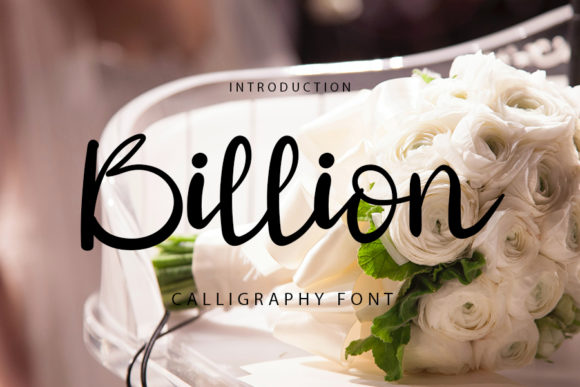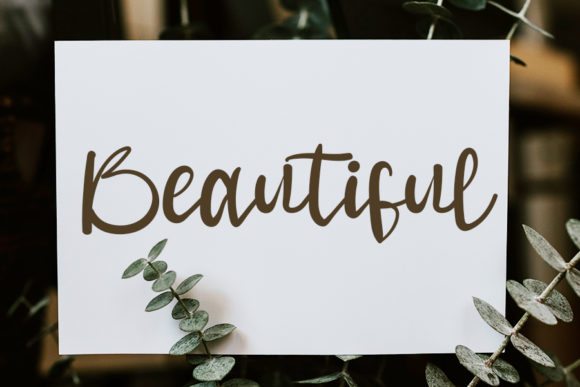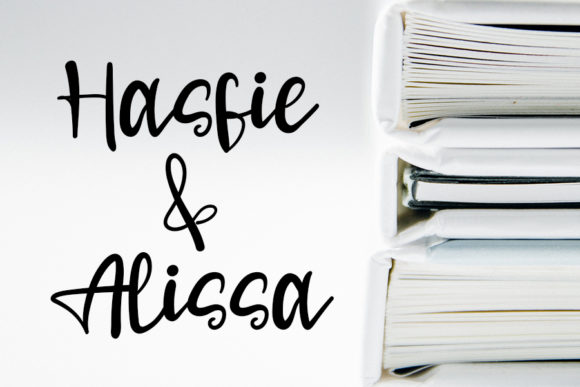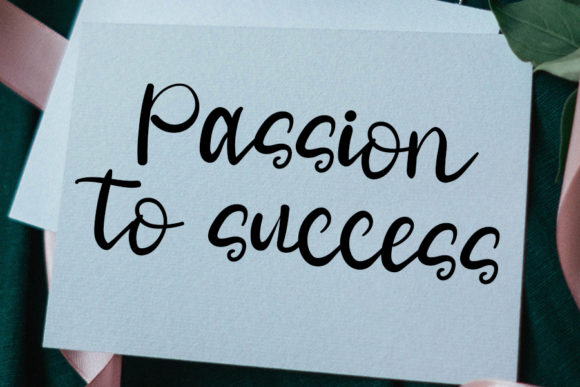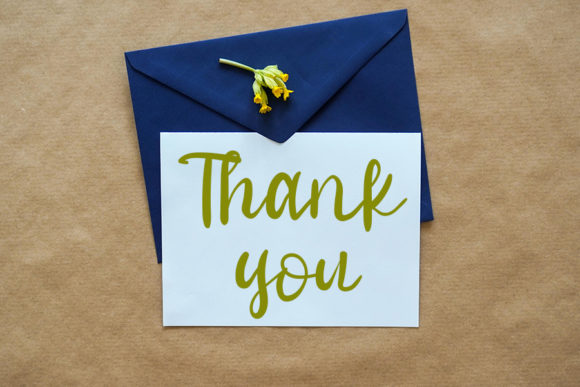
Billion Font
About Billion Font
Billion is a modern and casual handwritten font, described by an elegant touch, perfect for your favorite projects. Fall in love with its incredibly distinct and timeless style and use it to create spectacular designs!